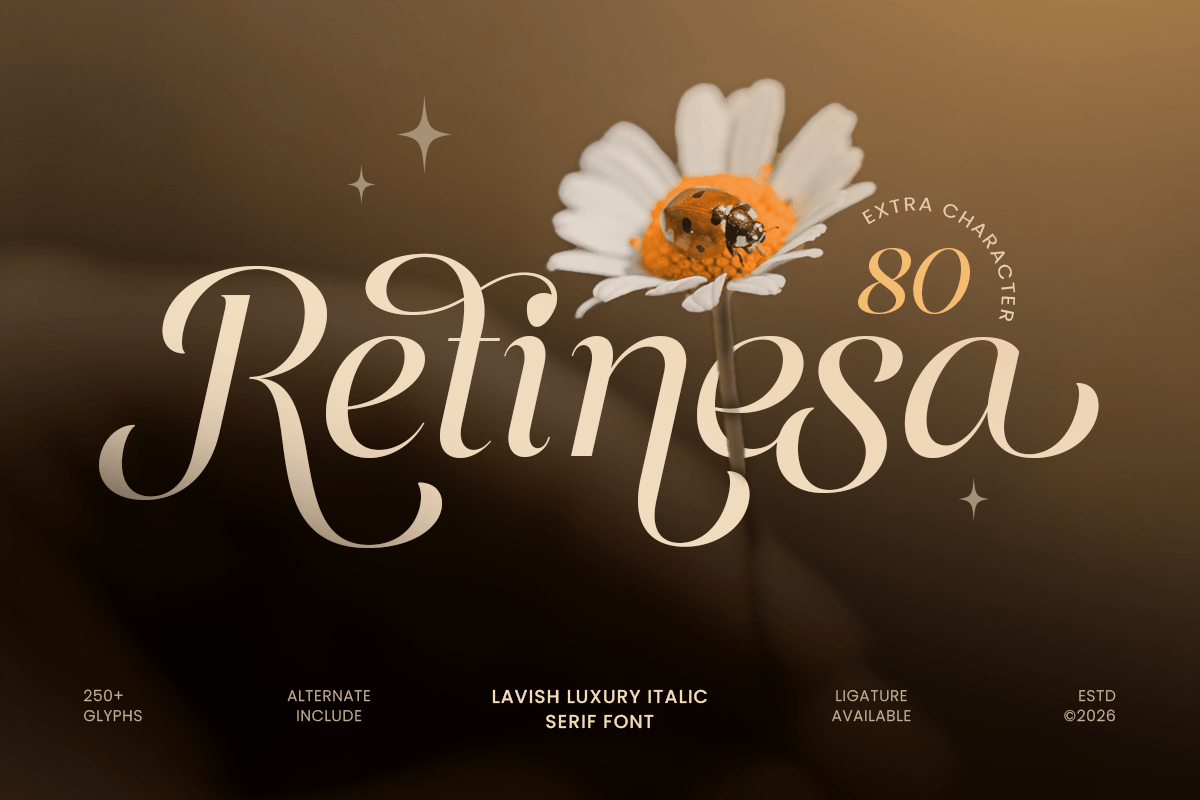
Retinesa
-Lavish Luxury Italic Serif FontRetinesa - Lavish Luxury Italic Serif Font
Retinesa is a lavish luxury italic serif font crafted to bring elegance, movement, and premium character into your visual identity. With graceful italic forms, refined serif details, and sophisticated proportions, this typeface is perfect for luxury branding, fashion editorials, premium packaging, wedding stationery, and elegant logo design.
Designed for creators who want typography with flow and prestige, Retinesa combines classic serif beauty with a stylish italic rhythm. Its expressive slant gives every word a sense of motion, refinement, and exclusivity, making it ideal for magazine headlines, boutique branding, beauty labels, invitations, and high-end promotional visuals.
Whether used as a logo mark, editorial title, packaging centerpiece, or elegant quote design, Retinesa delivers a polished and memorable impression across both print and digital media.
Retinesa – Lavish Luxury Italic Serif Font Features
Lavish italic serif design with luxury visual character
Perfect for branding, editorials, packaging, invitations, and premium logos
Elegant slanted letterforms with refined serif details
Ideal for fashion, beauty, wedding, boutique, and lifestyle industries
OpenType features for enhanced typographic styling
Create graceful luxury with Retinesa – the perfect italic serif font for premium branding, elegant editorials, and refined visual design. ✨👑